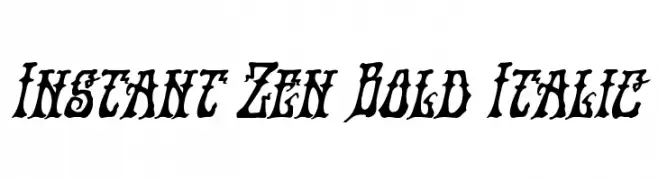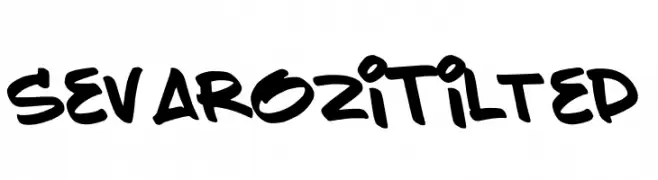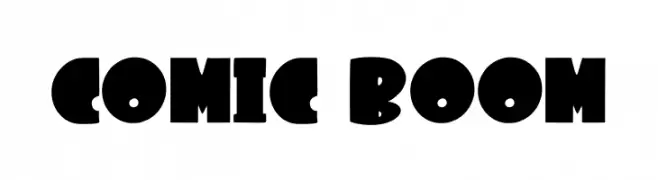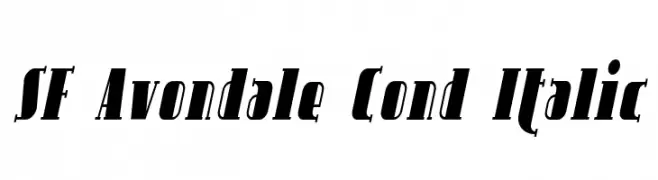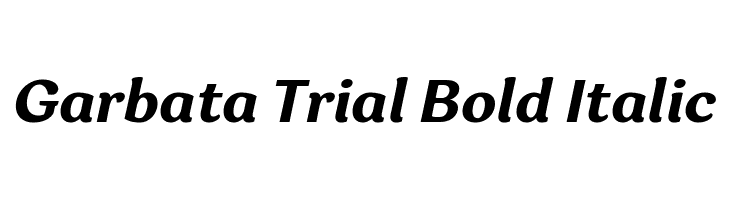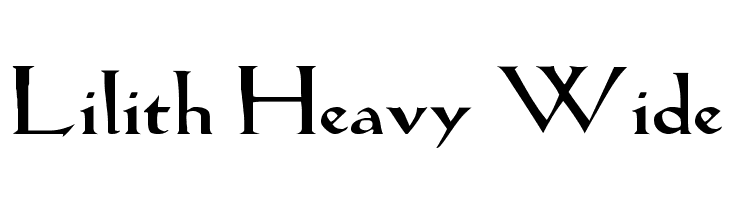
A bold, italicized decorative font with sharp, angular edges and unique flourishes.
A bold, angular font with a rugged, geometric style.
A bold, playful font with a tilted, dynamic style.
A bold, patterned font with diagonal lines for dynamic, eye-catching designs.
A bold, playful font with thick, rounded characters and a comic book style.
A modern, italicized sans-serif font with clean, streamlined characters.
A bold, italicized font with a futuristic halftone effect and dynamic design.
A bold, geometric font with decorative patterns and a modern, industrial style.